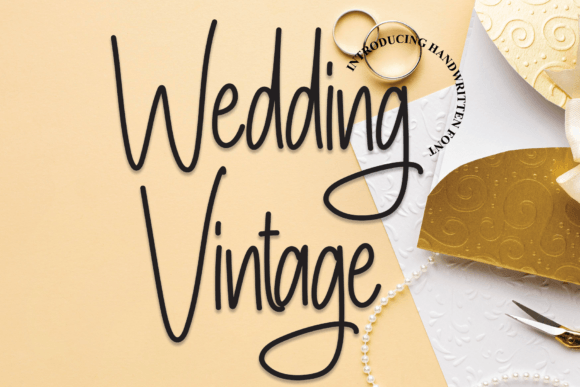
Journey into a realm of elegance and charm with Wedding Vintage Font, a captivating script font family that will leave you spellbound. This exquisite font, meticulously crafted by andikastudio, exudes a timeless aura that evokes the romance and grace of yesteryears.
Immerse yourself in the beauty of Wedding Vintage Font, a font that captures the essence of heartfelt sentiments and profound connections. Its intricate swirls, delicate strokes, and playful flourishes dance together in perfect harmony, creating a symphony of visual delight. Whether you are designing wedding invitations, creating heartfelt love letters, or adding a touch of whimsical charm to your digital creations, Wedding Vintage Font is the perfect choice to convey your heartfelt messages with grace and sophistication.
With Wedding Vintage Font, you have a versatile tool that effortlessly adapts to a myriad of creative endeavors. Whether you're crafting personalized greeting cards, designing eye-catching social media posts, or adding a touch of elegance to your website, this font will elevate your designs to new heights. Its inherent versatility makes it a must-have in the toolkit of any discerning designer.
Unleash your creativity and let your imagination soar as you explore the endless possibilities of Wedding Vintage Font. Its boundless charm and timeless appeal will add a touch of magic to any project you undertake. Experience the joy of creating designs that resonate with your audience, leaving a lasting impression that they will cherish forever.
Embark on a journey of artistic expression with Wedding Vintage Font, the ultimate font for capturing the essence of timeless romance. Let your creativity flourish as you design with this enchanting font, allowing your heartfelt sentiments to shine through in every letter and flourish. Its captivating beauty will leave your audience spellbound, creating a lasting impression that will linger long after they have closed your designs.